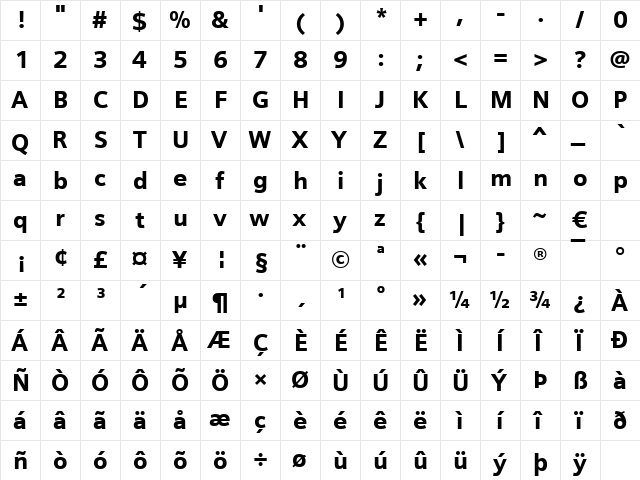
Siemens Sans Black Regular
Design Context for Siemens Sans Black Typeface
Siemens Sans Black is a composed and adaptable typeface that performs quietly and consistently across a wide range of design contexts.